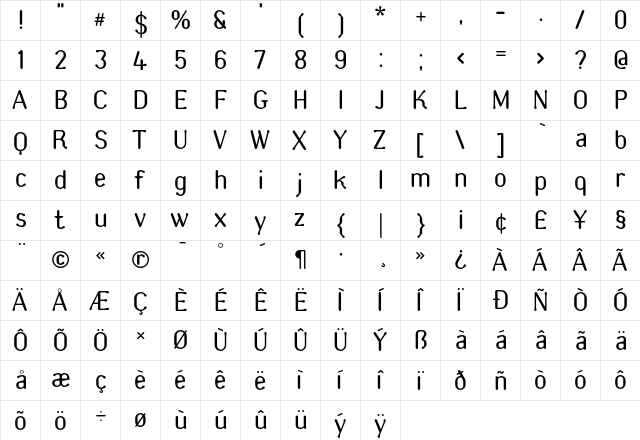
AES Regular
Design Context for AES Typeface
AES takes a measured approach to typography — its balanced proportions and neutral character make it a reliable workhorse for both digital and print work.